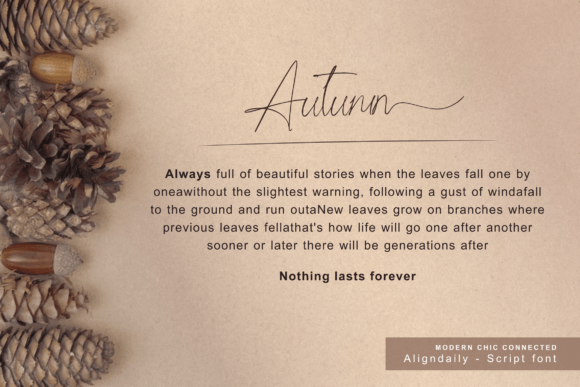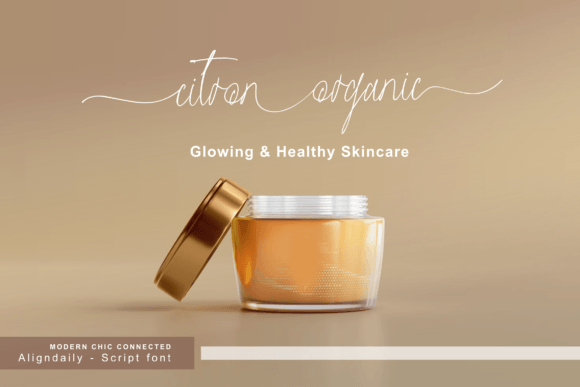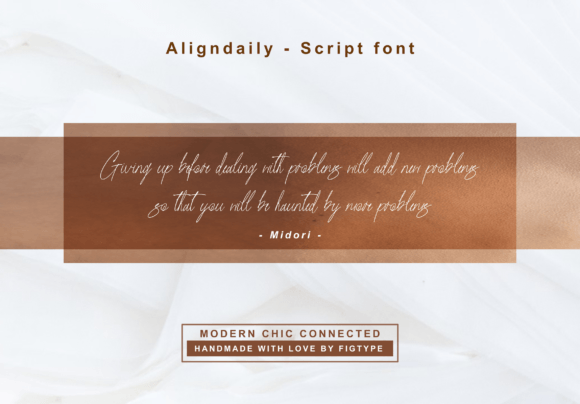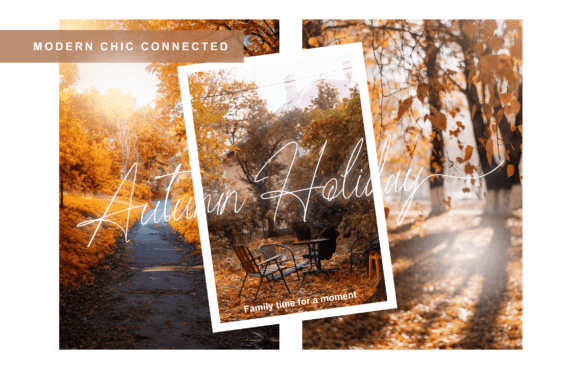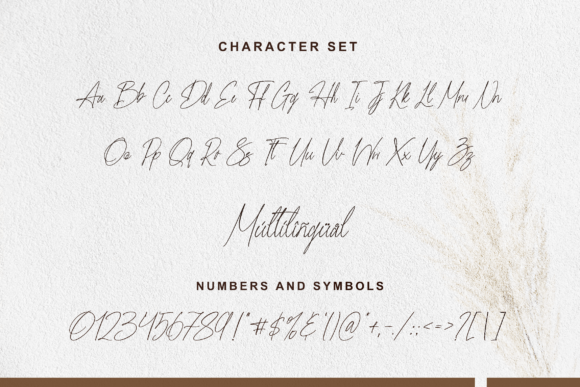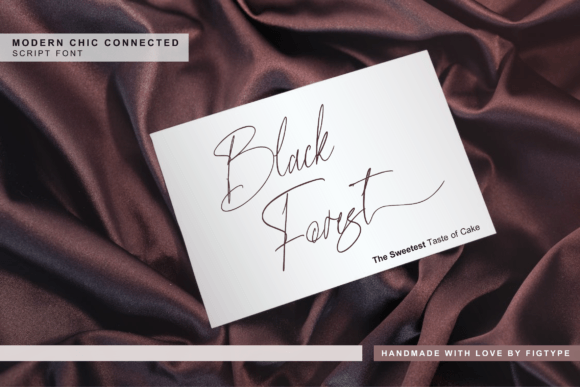
Introducing Align Daily Font: Elevate Your Designs with Elegance and Versatility
Are you tired of using the same old fonts in your design projects? Look no further than Align Daily, a stunning script font that exudes elegance and sophistication. With its ornamental swashes and fluid letterforms, Align Daily is the perfect addition to any designer’s toolkit. In this article, we’ll dive into the features and benefits of Align Daily, and explore how it can elevate your designs to the next level.
A Font that Exudes Elegance and Versatility
Align Daily is a script font that is both elegant and versatile. Its fluid letterforms and ornamental swashes make it perfect for a wide range of design projects, from wedding invitations and logos to social media graphics and more. Whether you’re designing for print or digital, Align Daily is sure to impress.
One of the standout features of Align Daily is its ability to add character and sophistication to any design project. The font’s elegant swashes and flourishes can be used to create beautiful headings, titles, and text, making it perfect for designers who want to add a touch of luxury to their work.
So, what can you use Align Daily for? The possibilities are endless! Here are just a few ideas to get you started:
- Wedding invitations and stationery: Add a touch of elegance to your wedding designs with Align Daily’s beautiful swashes and flourishes.
- Logos and branding: Use Align Daily to create a sophisticated and memorable brand identity.
- Social media graphics: Elevate your social media designs with Align Daily’s elegant letterforms and swashes.
- Print and digital publications: Use Align Daily to add a touch of luxury to your publications, from magazines and brochures to e-books and more.
Another great feature of Align Daily is that it is PUA (Private Use Area) encoded. This means that you can access all of the font’s glyphs and swashes with ease, using a program like Adobe Illustrator or Photoshop. With PUA encoding, you can:
- Easily access and edit glyphs and swashes
- Create custom combinations of letters and swashes
- Use the font’s full range of features to create unique and creative designs
Why Choose Align Daily?
So, why should you choose Align Daily for your design projects? Here are just a few reasons:
- Elegant and sophisticated: Align Daily exudes elegance and sophistication, making it perfect for designers who want to create high-end designs.
- Versatile: Align Daily can be used for a wide range of design projects, from wedding invitations to social media graphics.
- Easy to use: With PUA encoding, you can easily access and edit the font’s glyphs and swashes.
- High-quality: Align Daily is a high-quality font that is designed to produce stunning results.
In conclusion, Align Daily is a stunning script font that is sure to elevate your designs to the next level. With its elegant letterforms, ornamental swashes, and PUA encoding, Align Daily is the perfect addition to any designer’s toolkit. Whether you’re designing wedding invitations, logos, or social media graphics, Align Daily is sure to impress. So why wait? Download Align Daily today and start creating stunning designs that exude elegance and sophistication.